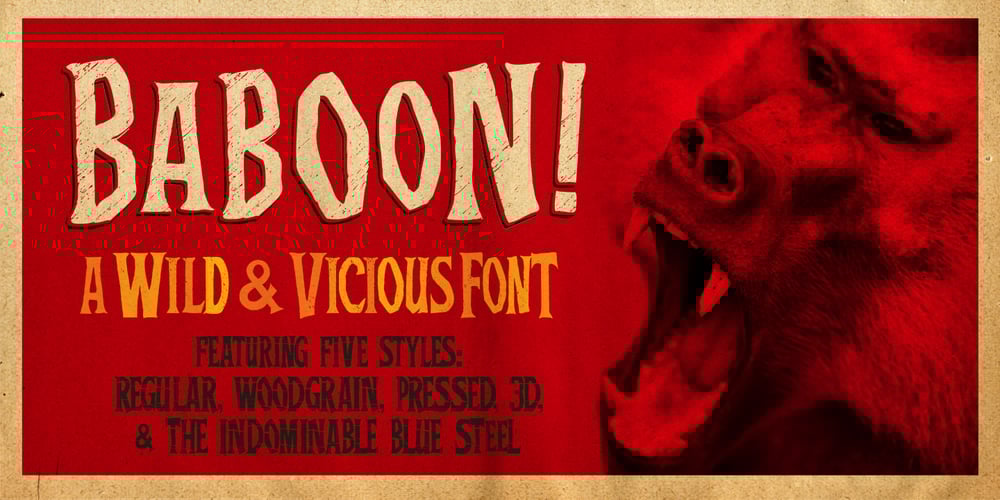
Baboon Font Family was designed by Matt Frost and published by Matt Frost. Baboon contains 7 styles and family package options. Baboon, is a tall, whimsical font inspired by homemade felt church banners from the 1970s. Surprisingly versatile, Baboon is as comfortable on a Halloween invitation as in a children’s book, as suited for a tiki bar as a church bulletin. It comes in six styles, and has a bizarre menagerie of stuff from my house made into a dingbat font along with it. For more, visit http://facebook.com/frostfoundry. (Warning: some of the dingbats are high resolution and can be a little processor-heavy.)